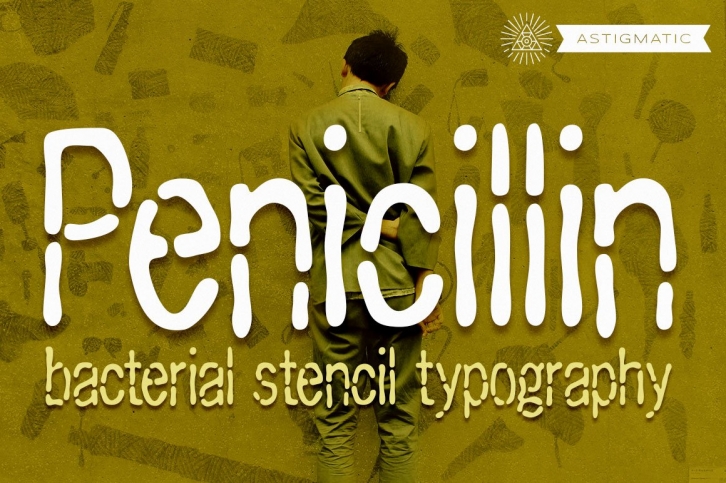
Penicillin is a psuedo thematic/destructive typestyle, looking more like a grunge/deteriorated or stencil typestyle, but actually a typestyle made to look as if formed of bacteria cells. From the fungus that breeds the bacteria that heals, comes a highly readable typestyle to add a little offbeat degeneration look to any design. The end result, a little funky fungus of a font, easy to read and fun to look at...let Penicillin cure your design ailments!
On occasion, sometimes you just have to play with crazy ideas to make something unusual and new. Penicillin came from such an idea, having watched the movie "Outbreak" a few too many times. Creating this typeface was a weird but fun trip. I hope you enjoy playing with it just as much as I had fun making it.